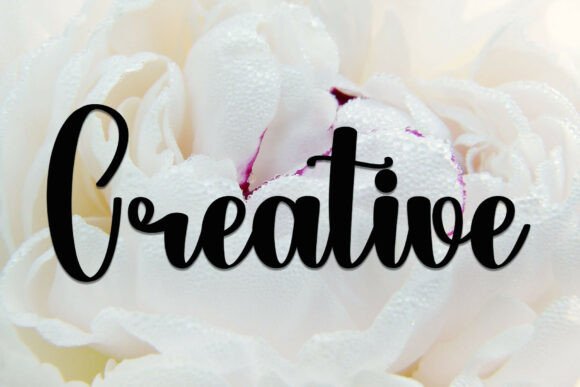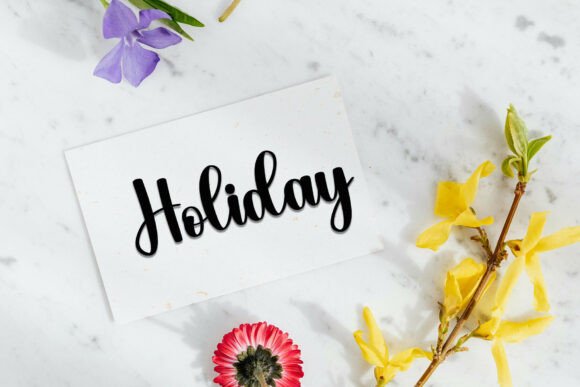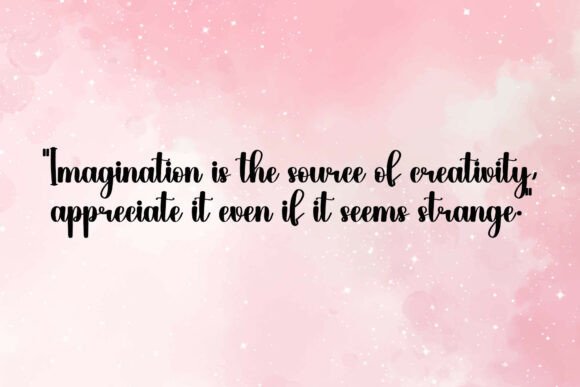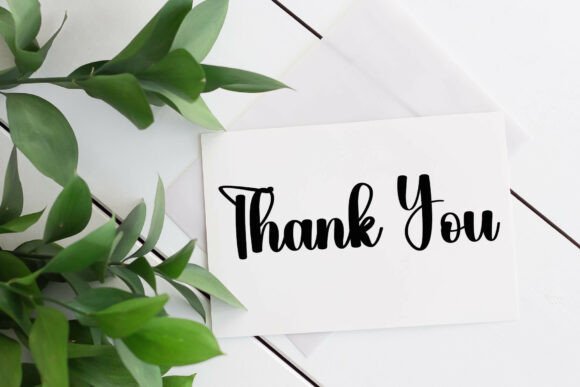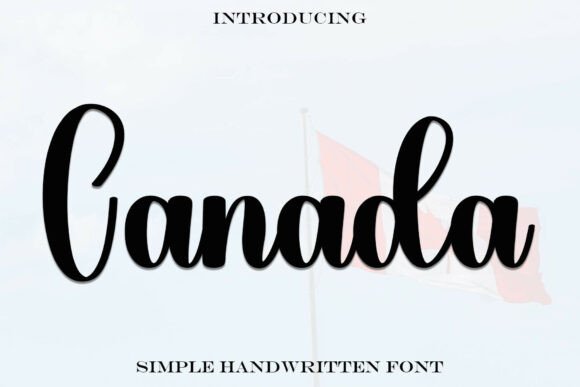
Introducing Canada Font: Elevate Your Designs with Elegance and Class
Are you a designer or crafter looking for a font that exudes sophistication and style? Look no further than Canada Font, a trendy handwritten font that brings a contemporary atmosphere and impeccable form to your design projects. Inspired by timeless classic calligraphy, Canada Font is the perfect addition to any creative endeavor.
The Inspiration Behind Canada Font
Canada Font draws inspiration from the world of classic calligraphy, where the art of beautiful handwriting is revered. The font’s creator aimed to capture the essence of traditional calligraphy and infuse it with a modern twist, making it suitable for a wide range of design applications. The result is a font that is both elegant and approachable, perfect for designers who want to add a touch of sophistication to their work.
Key Features of Canada Font
So, what sets Canada Font apart from other fonts? Here are some of its key features:
- Trendy and Handwritten: Canada Font boasts a trendy, handwritten look that is perfect for designers who want to add a personal touch to their work.
- Contemporary Atmosphere: The font’s modern design ensures that it stays relevant and fresh, making it ideal for contemporary design projects.
- Impeccable Form: Canada Font’s impeccable form ensures that it is legible and easy to read, making it perfect for body text and headings.
- Elegance and Class: The font’s classic calligraphy inspiration gives it an air of elegance and sophistication, making it perfect for high-end design projects.
Uses of Canada Font
Canada Font is a versatile font that can be used in a variety of design projects, including:
- Branding and Logo Design: The font’s elegant and sophisticated look makes it perfect for branding and logo design projects.
- Wedding and Event Design: Canada Font’s classic calligraphy inspiration makes it ideal for wedding and event design projects, such as invitations and programs.
- Packaging Design: The font’s modern design and impeccable form make it suitable for packaging design projects, such as product labels and packaging.
- Digital Design: Canada Font can be used in digital design projects, such as website headers, social media graphics, and email marketing campaigns.
Tips for Using Canada Font
Here are some tips for using Canada Font in your design projects:
- Pair it with Other Fonts: Canada Font can be paired with other fonts to create a unique and visually appealing design.
- Use it for Headings and Titles: The font’s elegant and sophisticated look makes it perfect for headings and titles.
- Experiment with Colors: Canada Font looks great in a variety of colors, so don’t be afraid to experiment and find the perfect color scheme for your design.
In conclusion, Canada Font is a trendy handwritten font that brings a contemporary atmosphere and impeccable form to your design projects. Inspired by timeless classic calligraphy, it exudes elegance and sophistication, making it perfect for a wide range of design applications. Whether you’re a designer or crafter, Canada Font is a great addition to your font library.